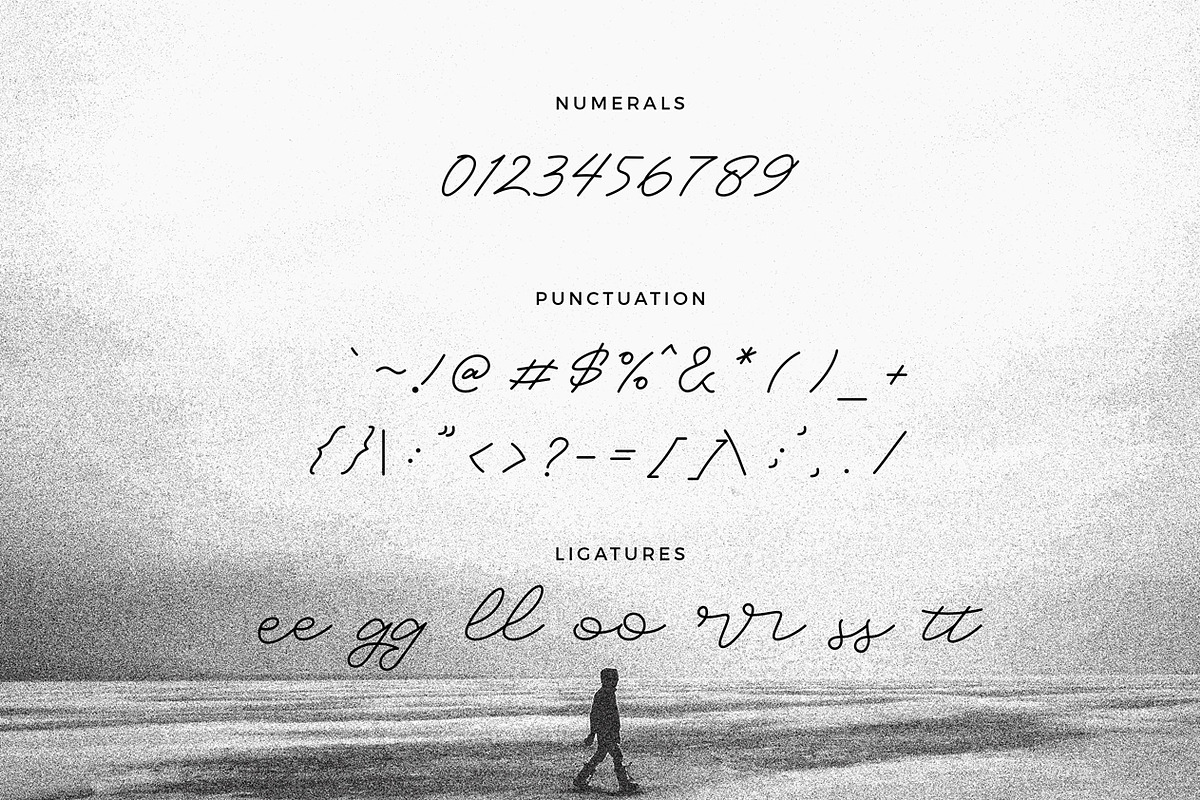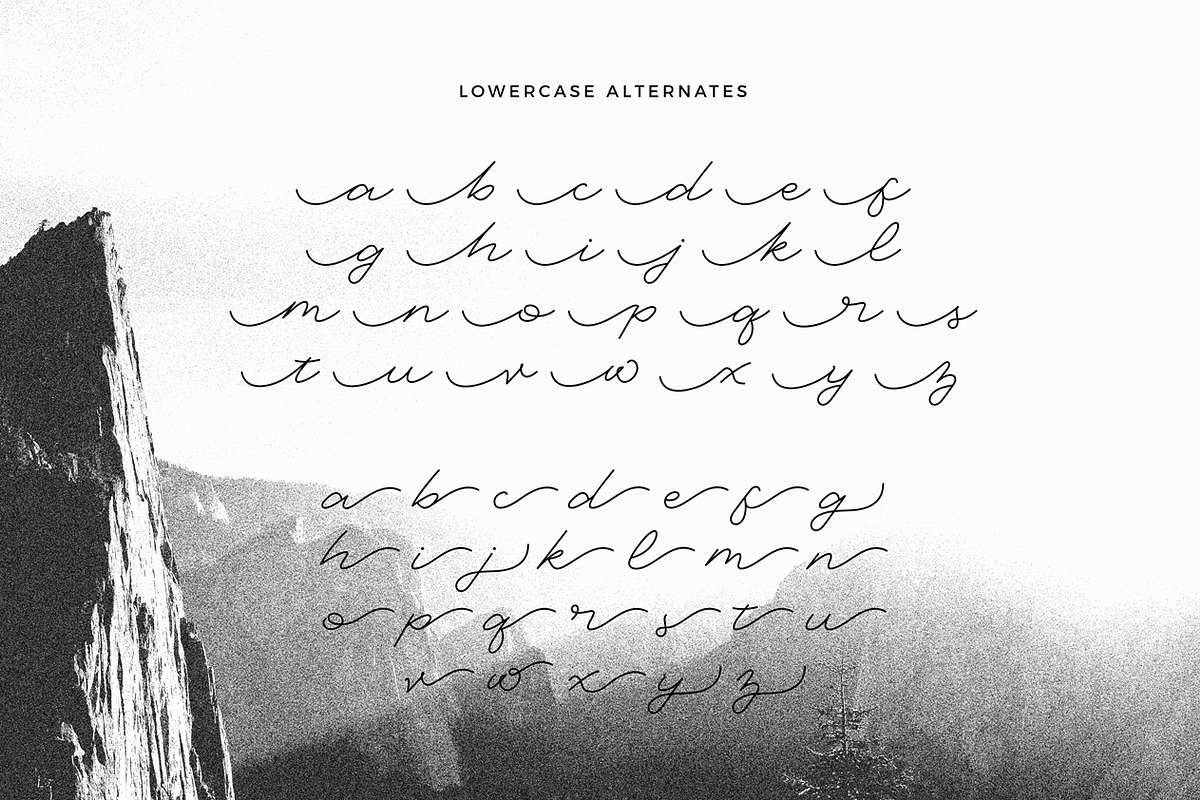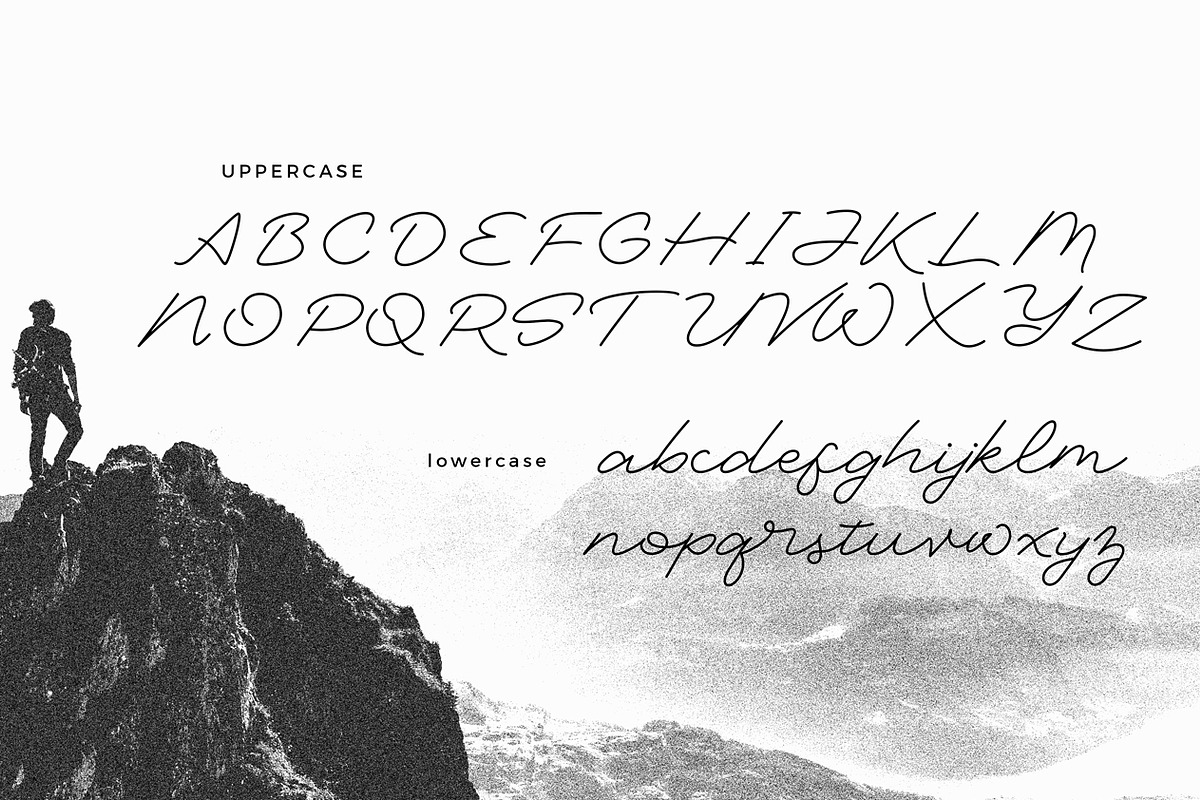
Martha Script
Martha Script is a monoline script font. It's allow you to create stunning and easy hand-lettering in an instant. Ideal for logo, quotes, wedding, product label/packaging, fashion, letter, invitation, poster, merchandise, greeting cards, etc
- Lowercase Alternates